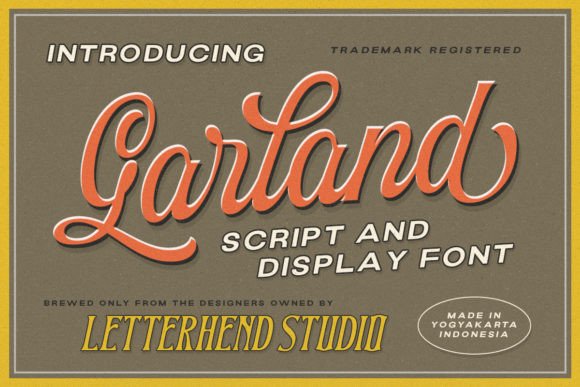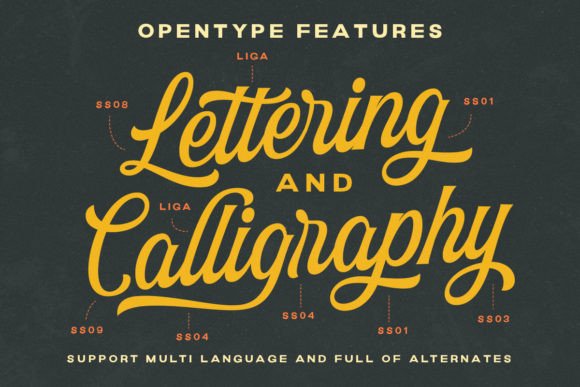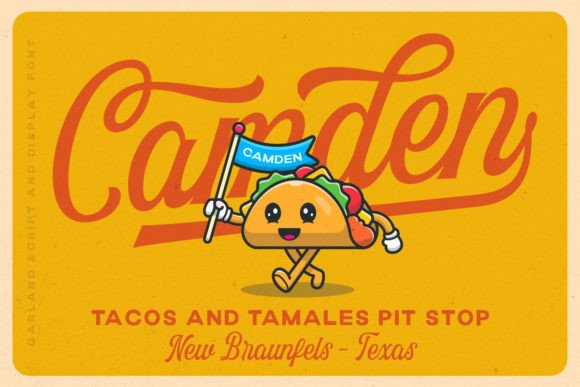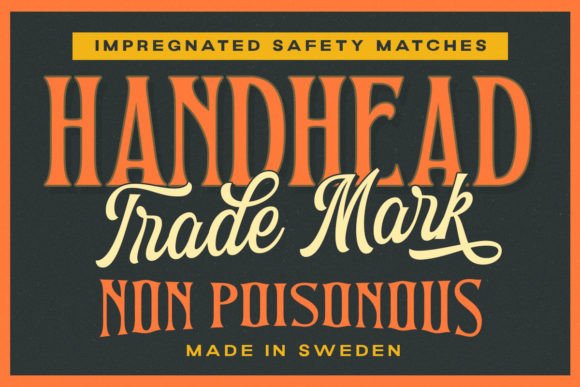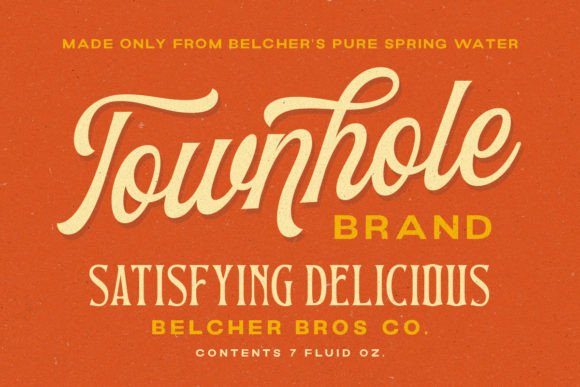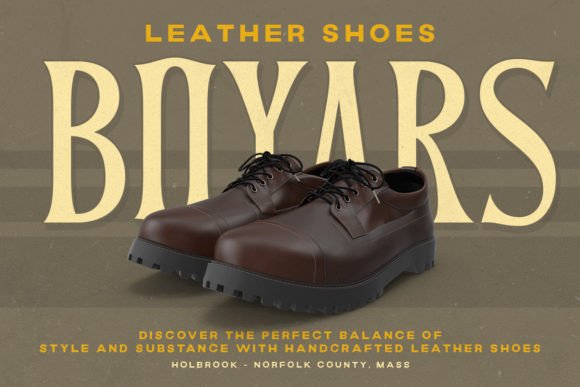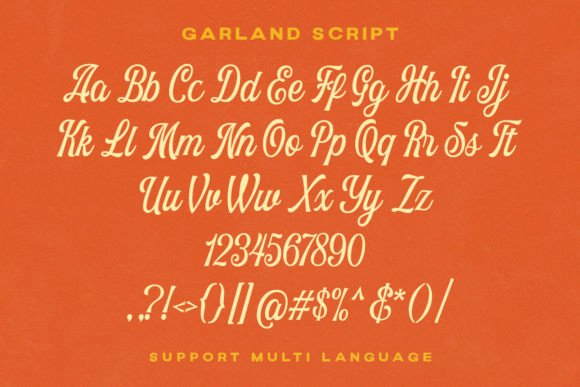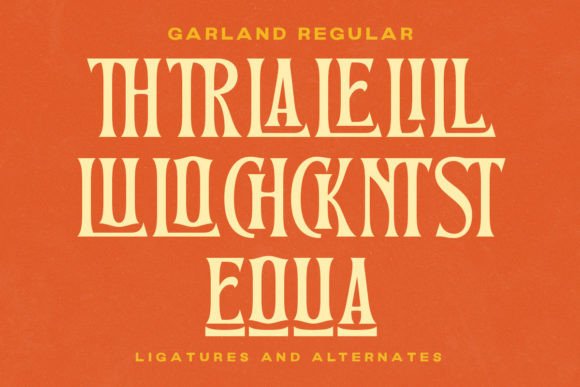
Garland is a font duo with classic display font with Vintage Script. You can play around to fit the form using typefaces. This font is perfectly made to be applied especially in logos, and other various formal forms such as invitations, labels, logos, magazines, books, greeting/wedding cards, packaging, fashion, make-up, stationery, novels, labels, or any type of advertising purpose. This font is PUA encoded which means you can access all of the amazing glyphs and ligatures with ease!
Garland Font